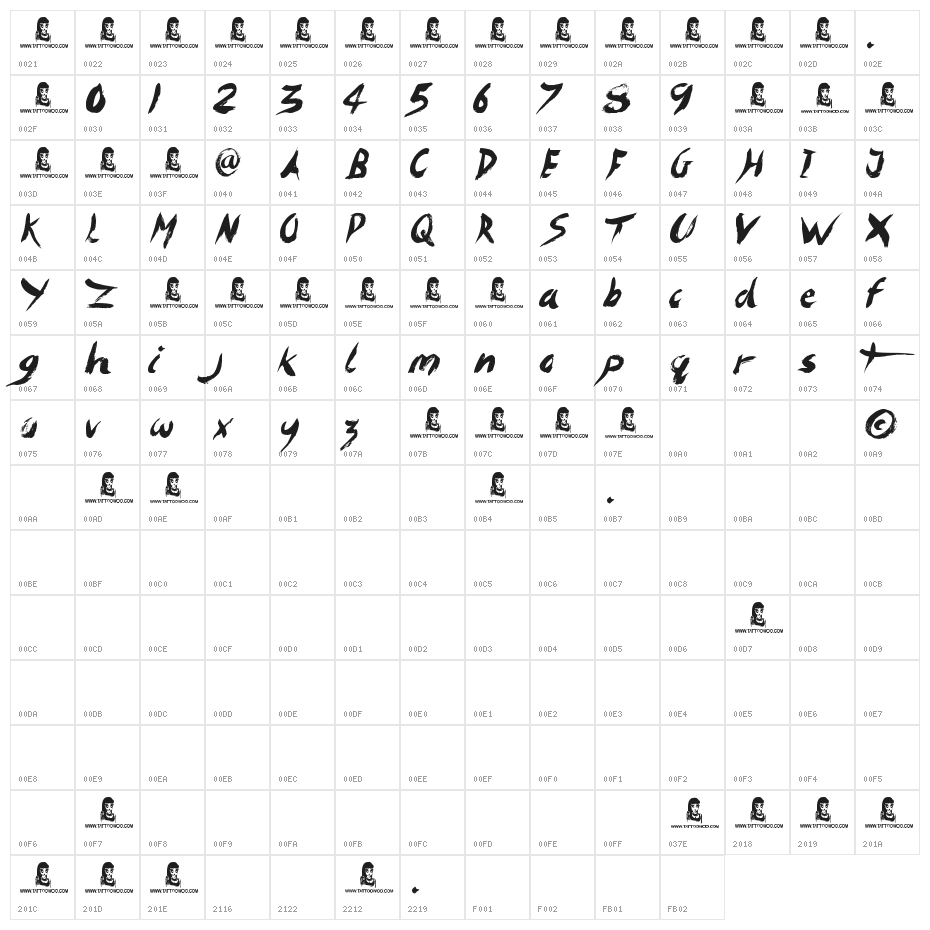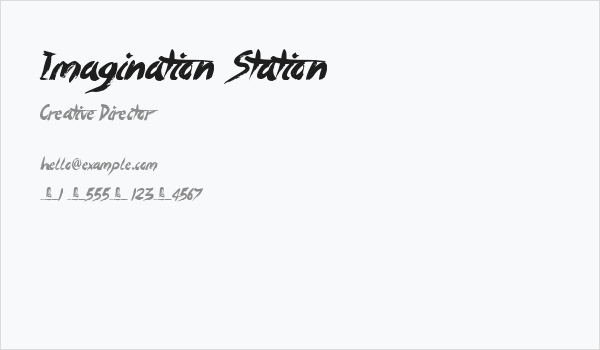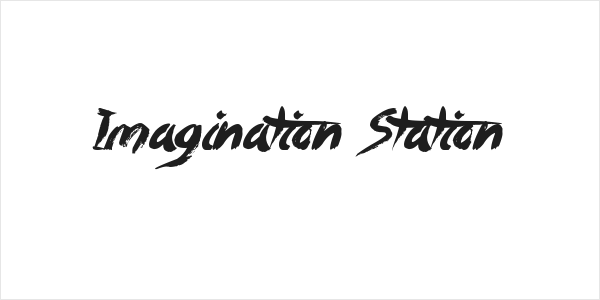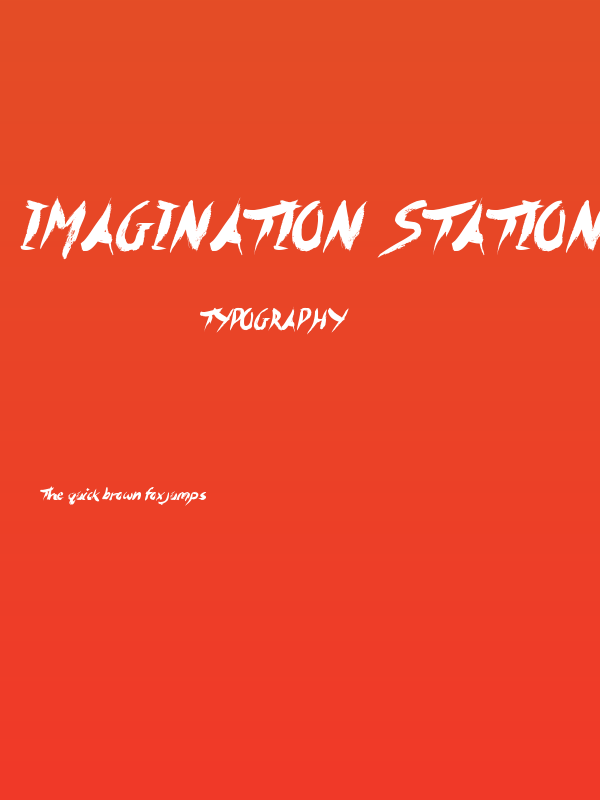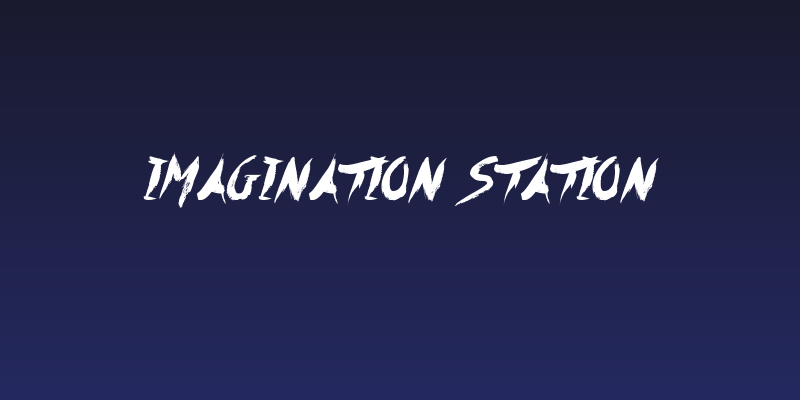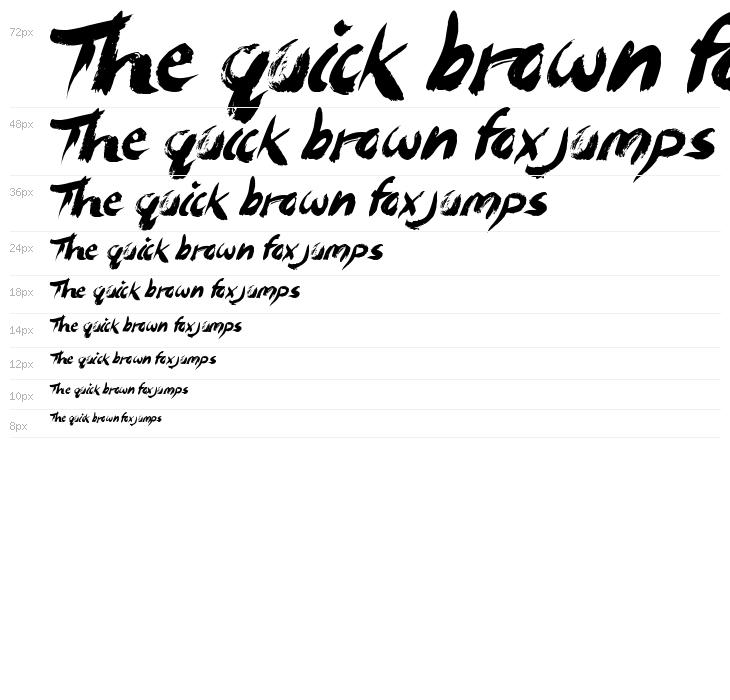
Imagination Station Font
Imagination Station Description
This font exhibits a bold and expressive brush style, characterized by its dynamic and energetic strokes. The letters have a hand-painted appearance, with varying thicknesses that add a sense of movement and fluidity. The uppercase and lowercase letters maintain a consistent style, with sharp angles and dramatic curves. The numbers and special characters follow the same artistic approach, making the font suitable for creative and artistic projects. Its unique style captures attention and conveys a sense of creativity and spontaneity.
| Proposed Projects | Ideal for artistic posters, branding, album covers, and creative advertising campaigns. |